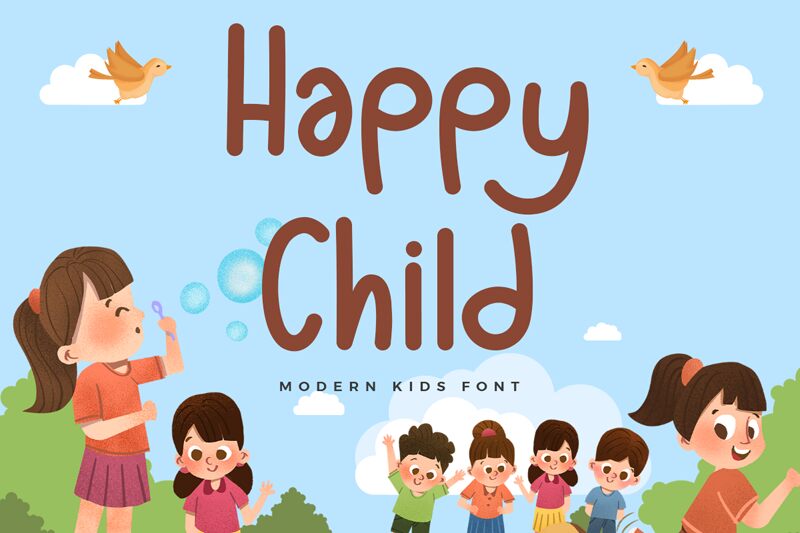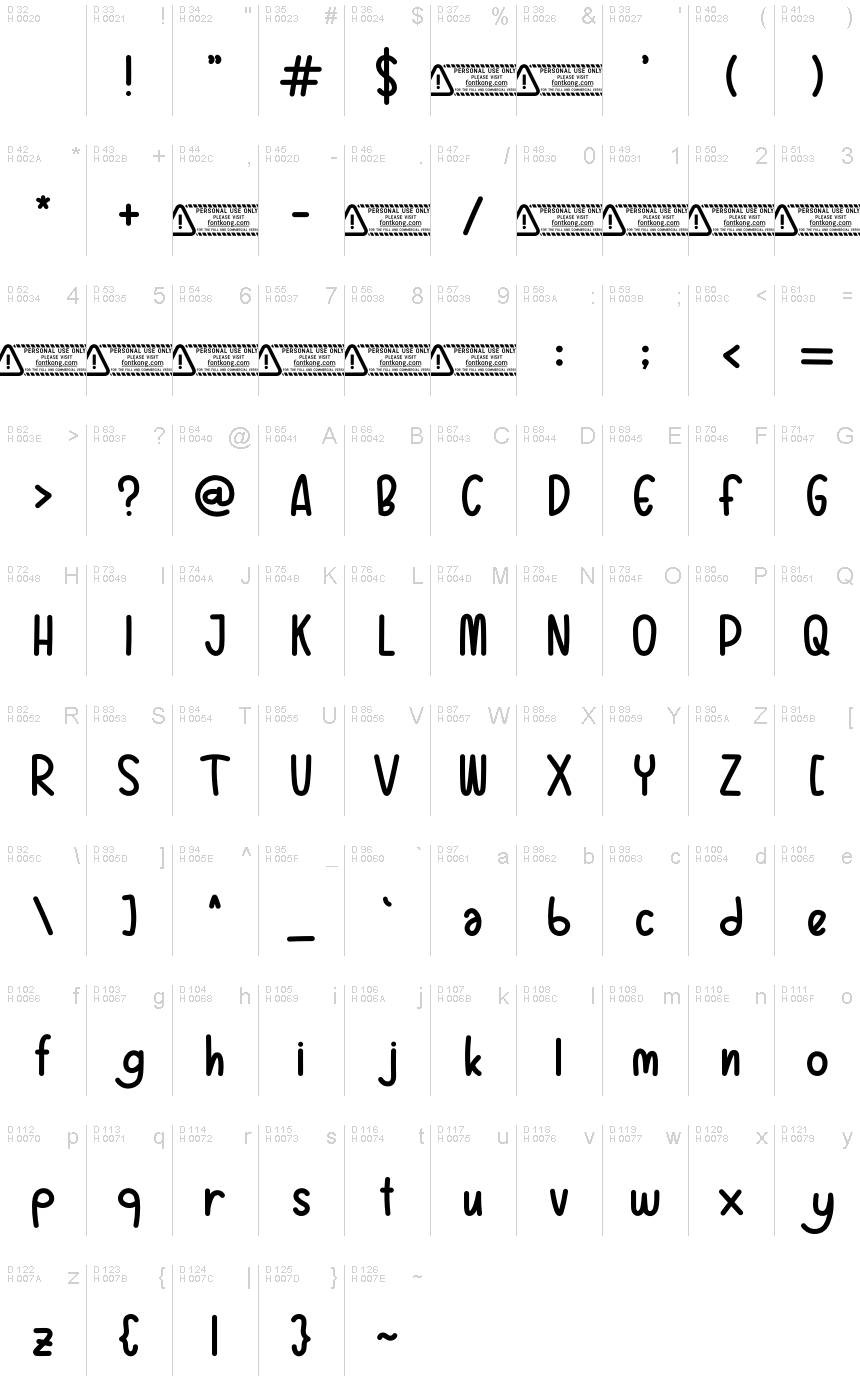
Happy Child font, designed by Kong Font, brings a playful and whimsical charm to design projects. This cartoon-style display font features rounded edges and bouncy letterforms that radiate joy and innocence, making it perfect for capturing the essence of youthfulness. Its expanded characters add a lively touch, ensuring each letter stands out with personality.
Visually striking, Happy Child is ideal for children’s books, playful branding, or vibrant event invitations where fun and creativity are paramount. Whether used in titles or decorative elements, this font effortlessly communicates an inviting and cheerful atmosphere that resonates with both kids and adults alike.